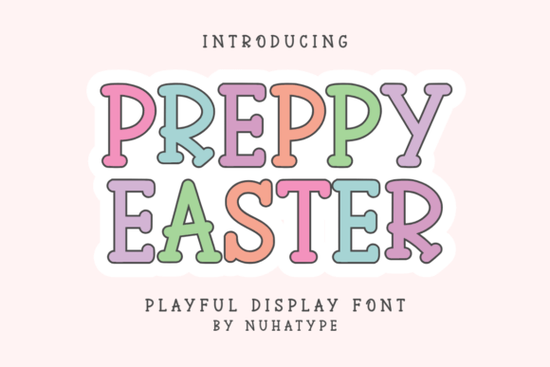
If you're looking for a clean, thoughtful font that adds quiet elegance to your projects, Preppy Easter is a standout choice. This thin, minimalist sans serif font captures the softness of natural handwriting while keeping things simple and modern. It works especially well in designs where subtlety matters think journaling, planner layouts, or small-scale print-on-demand items like mugs, tote bags, and stickers.
What makes Preppy Easter special?
Unlike bold or dramatic fonts, Preppy Easter feels personal and light. Its delicate strokes give off a handmade vibe without the inconsistency of real handwriting. That’s why it’s perfect for crafting with Cricut machines, vinyl cutters, or even hand-drawn illustrations. You can use it for quotes, seasonal messages, or decorative accents on gift tags and labels.
The font’s simplicity means it pairs beautifully with other typefaces too. Try combining it with a bolder weight for contrast, or use it alone for a serene, uncluttered look. Because it’s not overly busy, it keeps the focus on your message whether that’s a heartfelt note, a product label, or an Easter-themed design.
Where can I use this font?
- Planners & journals – Add gentle headings or date markers that feel inviting, not distracting.
- Print-on-demand products – Ideal for tumbler wraps, mug designs, and tote bag graphics.
- Stickers & labels – Small but impactful, especially when paired with simple icons or line drawings.
- Interior design KDP books – Great for titles, chapter breaks, or decorative text in lifestyle or wellness guides.
- Inspiring quotes – The thin lines let the words shine, making them feel more intimate and reflective.
How does it compare to other minimalist fonts?
While many sans serif fonts aim for clean lines, few capture the warmth of handwriting as naturally as Preppy Easter. If you’ve tried similar styles like Neuria or Lucky Autography, you’ll notice this one leans even further into softness and restraint. It’s less structured than some, which gives it a slightly more organic feel like a sketch made by someone who cares about details.
For those exploring minimalist design, you might also appreciate Prestion, another elegant option with a similar refined aesthetic. But if you want something that feels just a little more personal and tender, Preppy Easter stands out.
Is it easy to work with?
One thing to keep in mind: because it’s a thin font, avoid using it at very small sizes. At 10pt or below, the strokes may disappear or become hard to read. Stick to 14pt or larger for best results, especially in printed materials.
Why designers and crafters love it
Many users report that Preppy Easter helps their designs feel more intentional. There’s a calmness to it that resonates with people who value minimalism and thoughtfulness. Whether you’re creating a small business brand, a digital download, or a handmade gift, this font adds a touch of quiet confidence.
It’s also a favorite among hobbyists who enjoy slow, mindful crafting. The font doesn’t demand attention it lets your creativity take center stage instead.
Want to see how it looks in action? Check out Preppy Easter Font on Creative Fabrica to browse real examples and preview it directly in your browser.